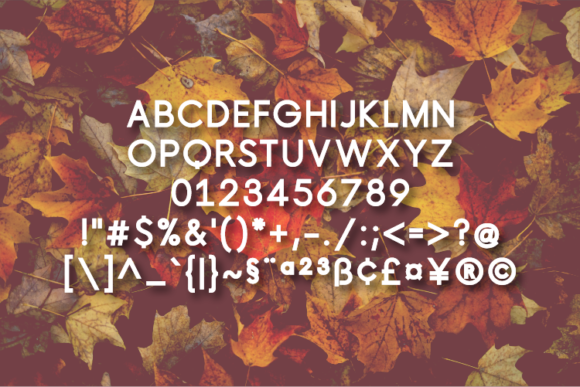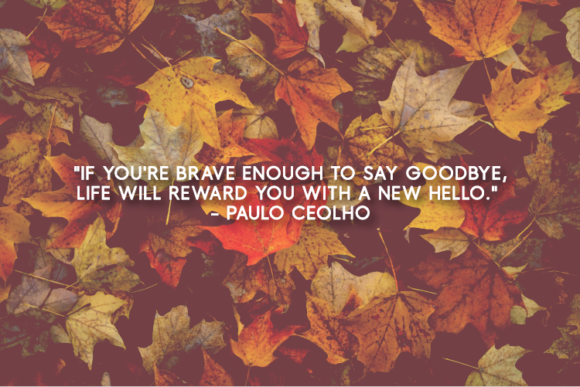
Introducing Experland Font: Elevate Your Designs with a Stunning Sans Serif
Are you tired of using the same old fonts in your designs? Look no further than Experland Font, a beautiful sans serif font that is sure to take your projects to the next level. Created with versatility in mind, Experland is perfect for a wide range of applications, from displays and headers to invitations, save the dates, weddings, and more.
Experland Font is a stunning sans serif font that has been carefully crafted to complement every project you’re working on. Its clean and modern lines make it perfect for designers and crafters who want to add a touch of sophistication to their work. Whether you’re creating a logo, brochure, or social media graphic, Experland is the perfect choice.
Key Features of Experland Font
- Versatile: Experland Font is perfect for a wide range of applications, including displays, headers, invitations, save the dates, weddings, and more.
- Clean and Modern: The font features clean and modern lines, making it perfect for designers and crafters who want to add a touch of sophistication to their work.
- Sans Serif: The sans serif design of Experland Font makes it easy to read and perfect for use in a variety of contexts.
- High-Quality: Experland Font is a high-quality font that is designed to deliver exceptional results.
Why Choose Experland Font?
There are many fonts to choose from, but Experland Font stands out from the crowd. Here are just a few reasons why:
- Unique and Eye-Catching: Experland Font is a unique and eye-catching font that is sure to grab attention.
- Easy to Read: The sans serif design of Experland Font makes it easy to read, even at small sizes.
- Flexible: Experland Font is perfect for use in a variety of contexts, from digital designs to print materials.
- Highly Versatile: The font can be used for a wide range of applications, including displays, headers, invitations, save the dates, weddings, and more.
How to Use Experland Font
Using Experland Font is easy. Here are a few tips to get you started:
- Pair it with Other Fonts: Experland Font pairs well with other fonts, making it easy to create unique and interesting combinations.
- Use it for Headings: The font is perfect for use in headings, making it a great choice for designers and crafters who want to add a touch of sophistication to their work.
- Experiment with Different Sizes: Experland Font looks great at a variety of sizes, making it perfect for use in a range of contexts.